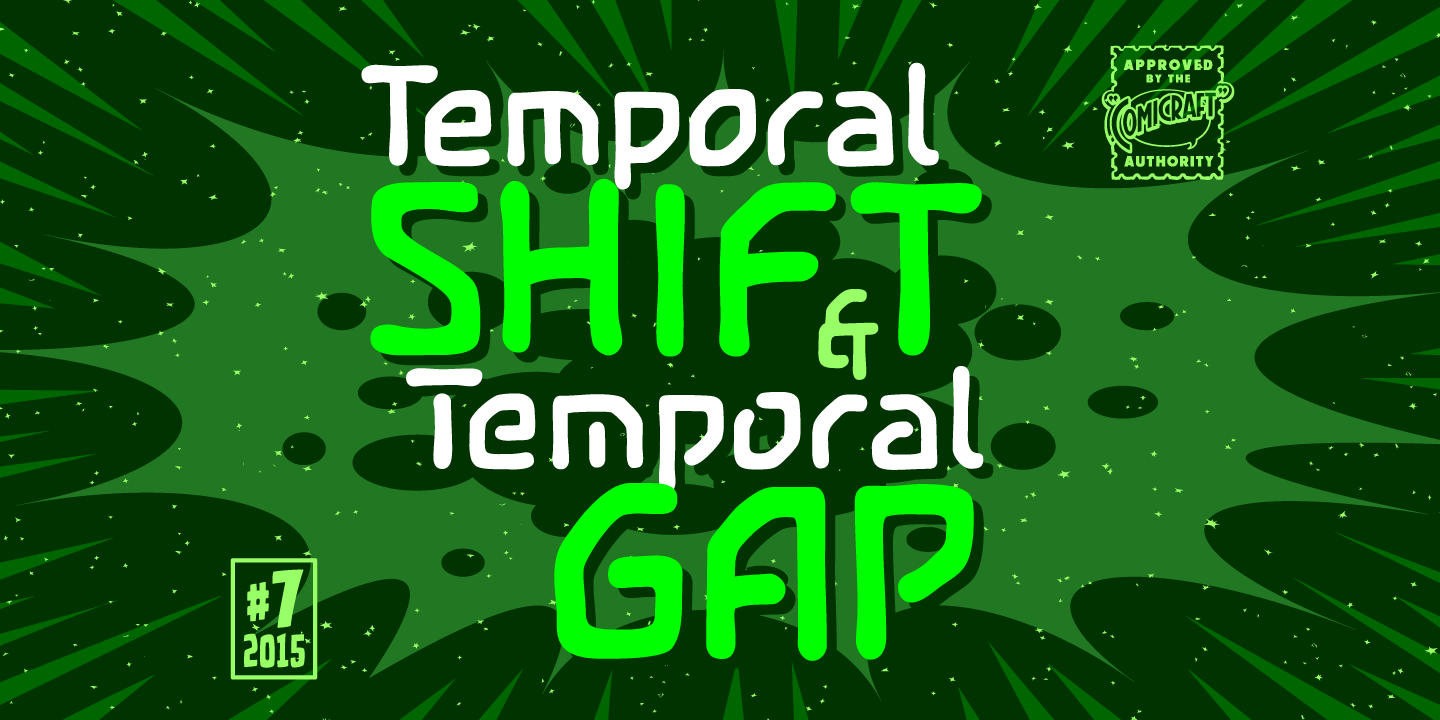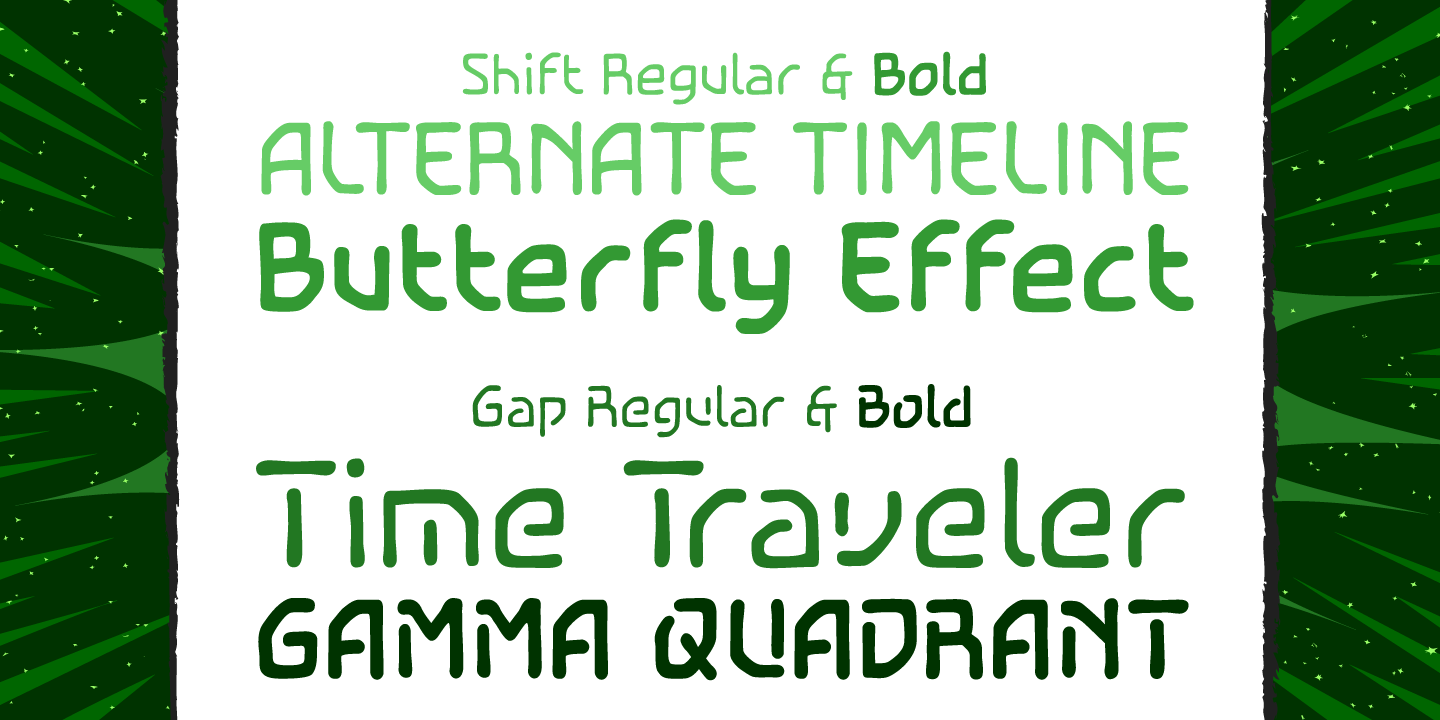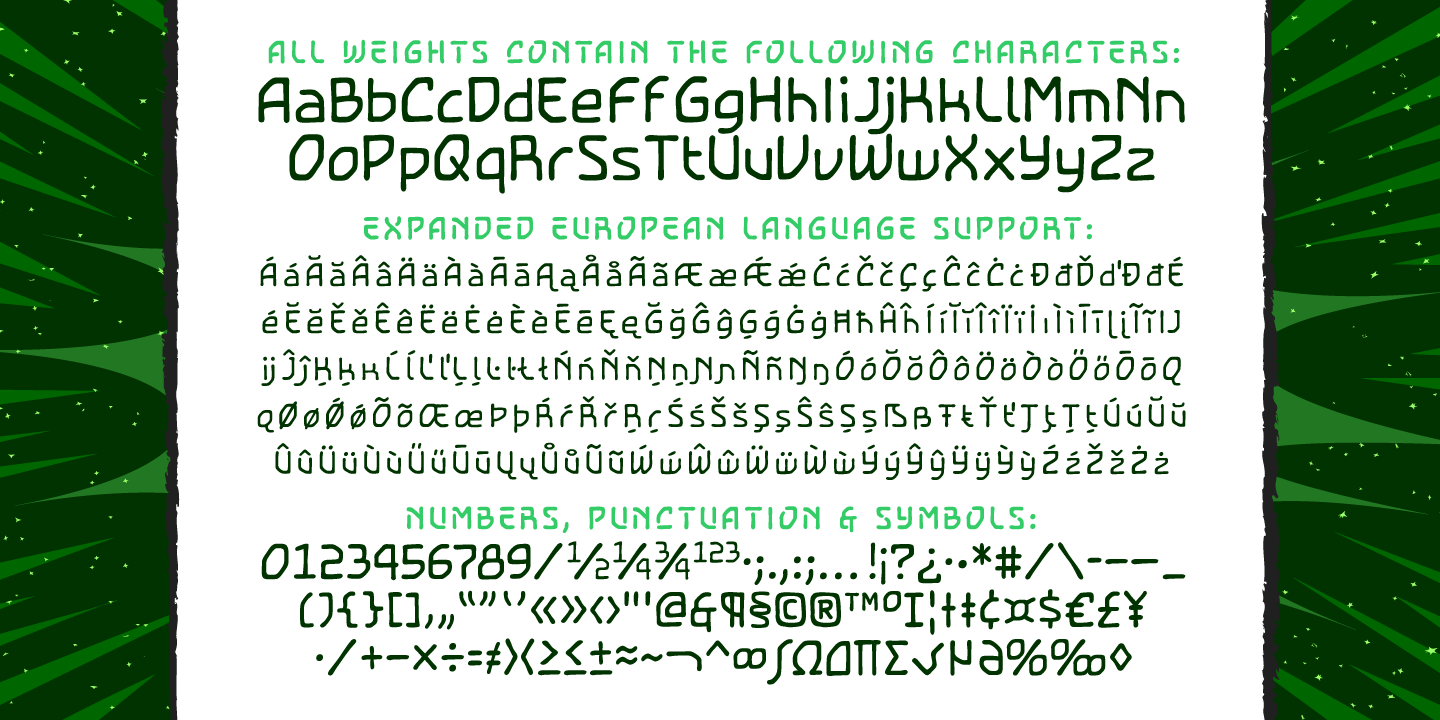
Temporal Shift & Gap
Temporal Shift & Gap is a playful, modern sans serif family with a hand-drawn feel and an intentionally irregular edge. Its rounded, monoline construction keeps things clean and friendly, while the quirky comic-style energy gives display text a casual, whimsical personality.
Sold as a 4-style family from Comicraft Fonts, it includes Temporal Gap Regular, Temporal Gap Bold, Temporal Shift Regular, and Temporal Shift Bold. That mix of regular and bold weights makes it easy to build lively headlines, attention-grabbing packaging, posters, social graphics, and other expressive branding pieces that benefit from a fun, informal voice.
If you want lettering that feels bold, artistic, and a little offbeat without losing clarity, this family offers a distinctive balance of geometric structure and playful charm.